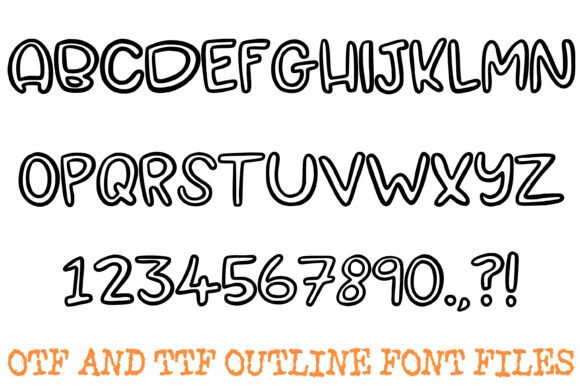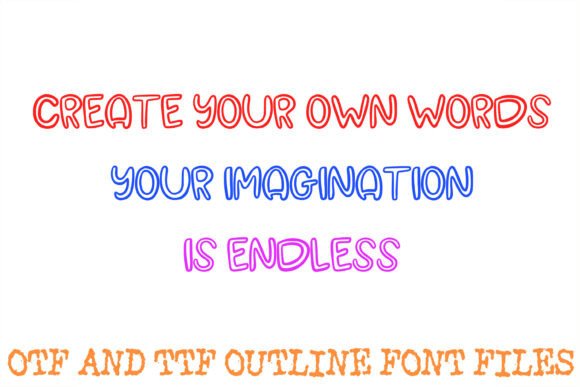
Getting Your Creative Spark On
Remember that moment when you’re brainstorming ideas for a new project, and suddenly, a burst of creativity hits you? The excitement builds up, and you can’t wait to bring your vision to life. As designers, we’ve all been there – eager to infuse our work with personality, energy, and a dash of playfulness. That’s where the right font comes in, setting the tone for your entire design.
Introduction to Cartoon Display Font
Enter the Cartoon Display Font – a game-changing design resource that’s about to become your new best friend. With its bold, hand-drawn alphabet and unique double-line design, this high-quality font is perfect for adding a touch of whimsy to your creative project. Whether you’re designing a children’s book, a sticker pack, or a social media graphic, the Cartoon Display Font is sure to deliver a professional yet approachable look that’s impossible to ignore.
Unlocking the Power of Cartoon Display Font
Available for free download with a transparent background, this versatile font is a must-have for any designer looking to elevate their designs. So why settle for ordinary when you can have extraordinary? Discover the value of the Cartoon Display Font and take your designs to the next level with its dynamic inner-line detail and bold, modern aesthetic.
Key Features of Cartoon Display Font
- Transparent background option for versatile design applications
- Unique, playful characters designed to add a touch of whimsy to any design
- Available in various sizes and resolutions to accommodate different design needs
- Perfect for use in digital and print media, including web design, social media, and advertising
Honest Review: Cartoon Display Font
I recently stumbled upon the Cartoon Display Font and I’m excited to share my thoughts on it. As a designer, I’m always on the lookout for high-quality design resources to elevate my creative projects. This font definitely caught my attention.
Here are some things that work well about the Cartoon Display Font:
- ✨ Unique and playful style that’s perfect for adding a touch of whimsy to your designs.
- ✨ Comes in a variety of styles, including bold and italic options, to give you more flexibility in your design.
- ⚠️ Limited font sizes and styles may not be suitable for larger or more complex projects.
- ⚠️ Transparent background support may not be available in all design software.
Overall, I’m impressed with the Cartoon Display Font. It’s a great resource for designers looking to add a playful touch to their work. While it may have some limitations, it’s definitely worth considering for your next creative project.
How to Use Cartoon Display Font
The Cartoon Display Font is a high-quality design resource perfect for creative projects that require a playful and engaging touch. This font is ideal for use in various digital platforms and can be easily customized to suit your design needs.
– Use the Cartoon Display Font in Microsoft Office applications to add a playful touch to your presentations and documents.
Tips for Getting the Most Out of the Cartoon Display Font
To get the most out of the Cartoon Display Font, experiment with different font sizes, colors, and combinations. Use it to create eye-catching headings, titles, and text overlays.
The Cartoon Display Font is commonly used in children’s book illustrations, party invitations, social media graphics, and advertising materials. Its playful and engaging design makes it perfect for projects that require a fun and creative touch.
Alternatives to Cartoon Display Font
Comic Sans MS is a popular alternative to Cartoon Display Font, suitable for a wide range of creative projects. It’s a high-quality font that works well for both print and digital design. When to use: This font is ideal for informal and playful designs, such as children’s books, greeting cards, and websites.
Compared to Cartoon Display Font, Comic Sans MS has a more rounded and friendly appearance, making it perfect for designs that require a touch of warmth and approachability. However, it’s worth noting that Comic Sans MS has been criticized for being overused and clichéd, so use it sparingly.